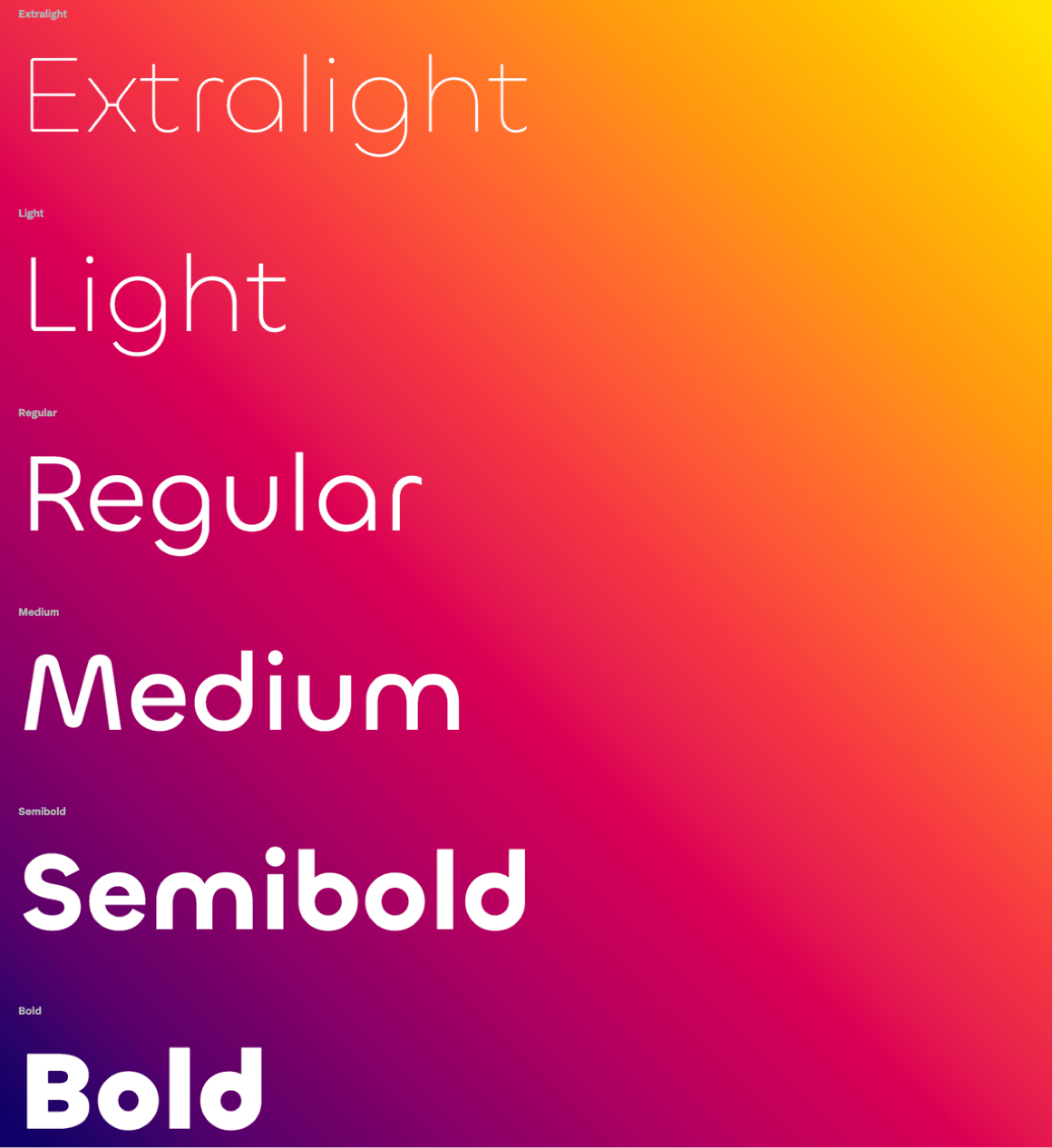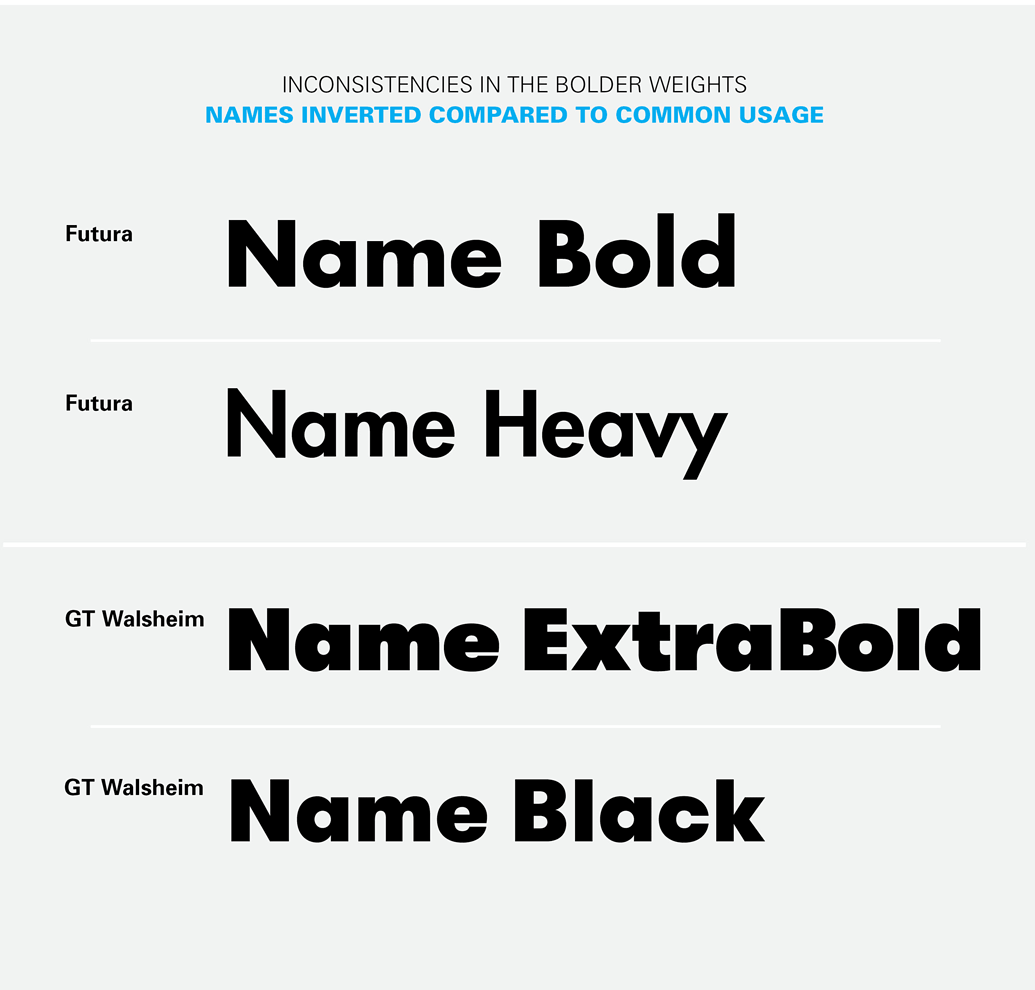
Specific Font Weight . The font weight refers to the thickness of the characters in a particular font family. They all correspond to a particular named weight: The weight of a font refers to how thick or thin its strokes appear, and it is. If font is specified as a system keyword, it must be one of: Adjusting the font weight can.
Adjusting the font weight can. If font is specified as a system keyword, it must be one of: The weight of a font refers to how thick or thin its strokes appear, and it is. They all correspond to a particular named weight: The font weight refers to the thickness of the characters in a particular font family.
Specific Font Weight If font is specified as a system keyword, it must be one of: The font weight refers to the thickness of the characters in a particular font family. Adjusting the font weight can. They all correspond to a particular named weight: The weight of a font refers to how thick or thin its strokes appear, and it is. If font is specified as a system keyword, it must be one of: